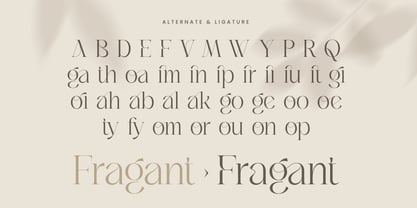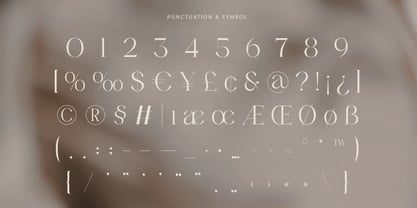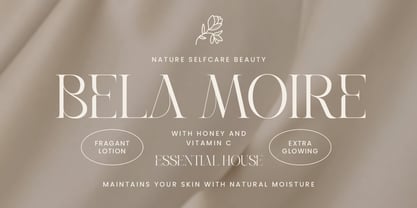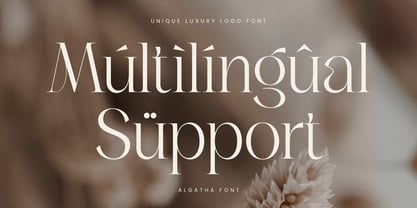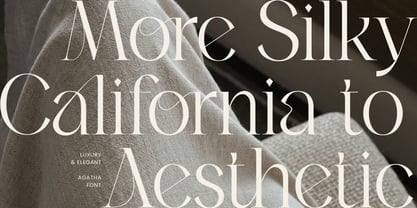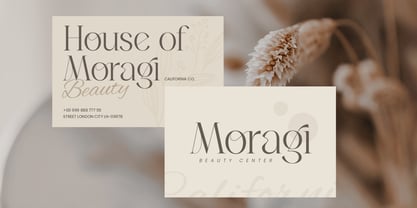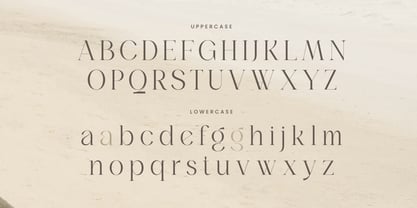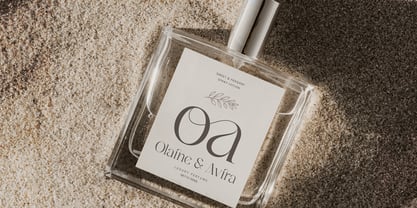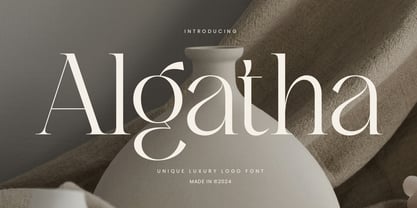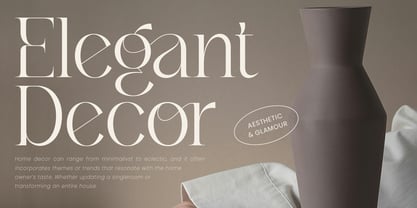
Algatha
The Algatha Font Family was designed by Zamroni Hamzah and published by Sensatype Studio. Algatha contains 2 styles and family package options. More about this family
Algatha - Unique Luxury Logo Font
Agatha is a unique luxury logo font crafted to bring sophistication and elegance to high-end branding projects. Its distinct character shapes and refined strokes create an aura of timeless luxury, making it perfect for fashion labels, luxury brands, and premium design projects. Agatha offers a balance of classic beauty and modern appeal, ensuring your logos and titles stand out with undeniable charm.
Designed to capture attention with its exquisite details, Agatha enhances any project by adding a touch of exclusivity and style. Whether used in logos, invitations, or magazine layouts, its sleek letterforms convey luxury without being overly ornate. The versatility of this font ensures it can elevate both minimalist designs and elaborate layouts alike. From luxury branding to stylish advertising, Agatha provides the perfect solution for designers seeking a font that embodies grace, exclusivity, and timeless sophistication.
Agatha Unique Luxury Logo Font Features:
• Unique Ligature & Alternative Characters Ready
• Punctuation, Number, and Symbol
• Uppercase and Lowercase
• Opentype Features